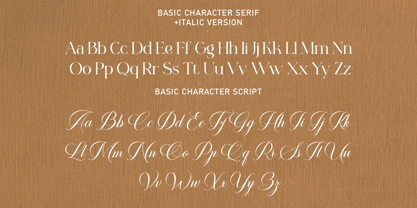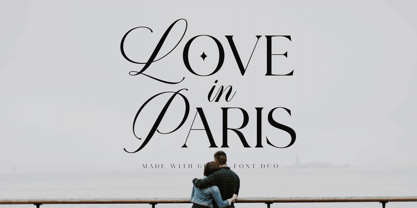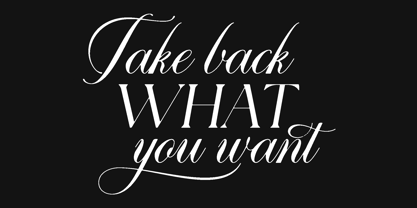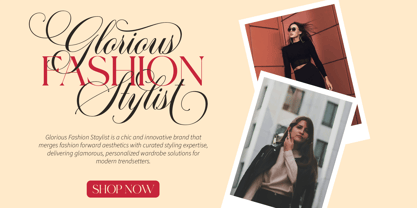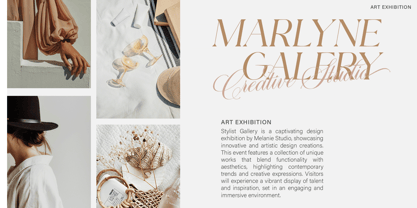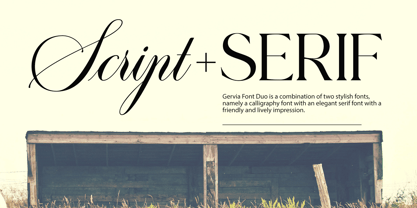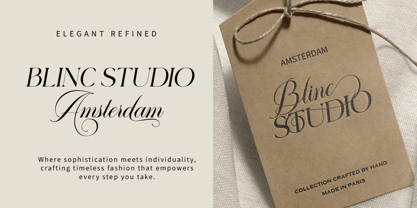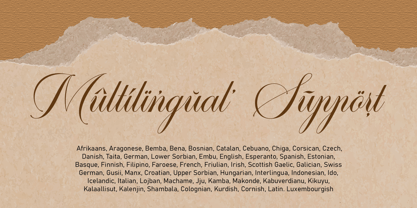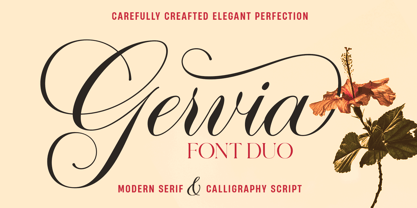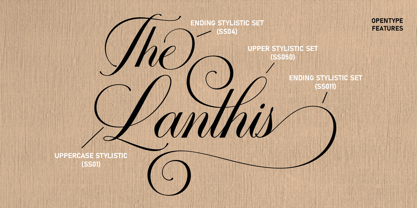
Gervia Font Duo
by Lucky Type
The Gervia Font Duo Font Family was designed by Muhammad Fajar and published by Lucky Type. Gervia Font Duo contains 3 styles and family package options.
Gervia Font Duo is a combination of two beautiful fonts, namely a calligraphy font with a modern serif font with a classic look that is simple and easy to read.
Gervia Script Pro has 800+ unique alternative characters, including simple latin and pro latin support. This font is casual and beautiful with swashes. It can be used for various purposes, such as logos, product packaging, wedding invitations, branding, headlines, signage, labels, signatures, book covers, posters, quotes, and many more.
Gervia Serif has two different versions, namely regular and italic, which will make your design more beautiful and more prominent.